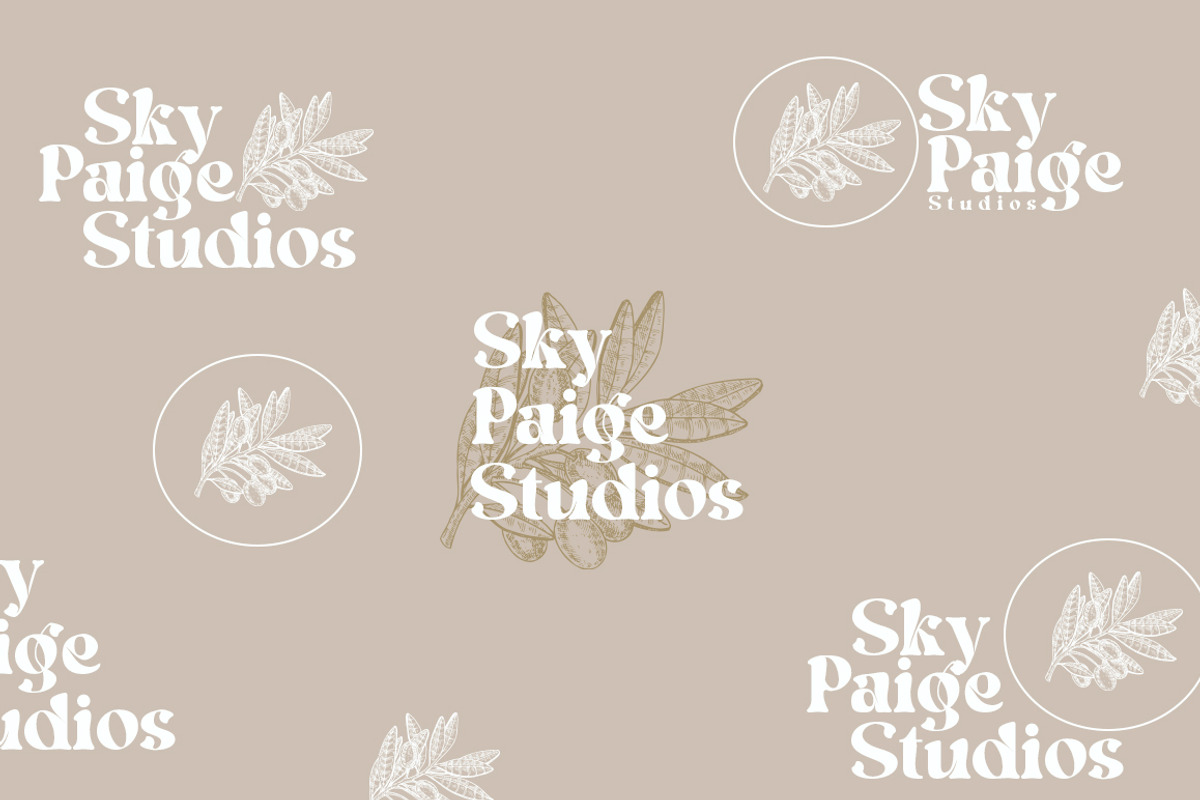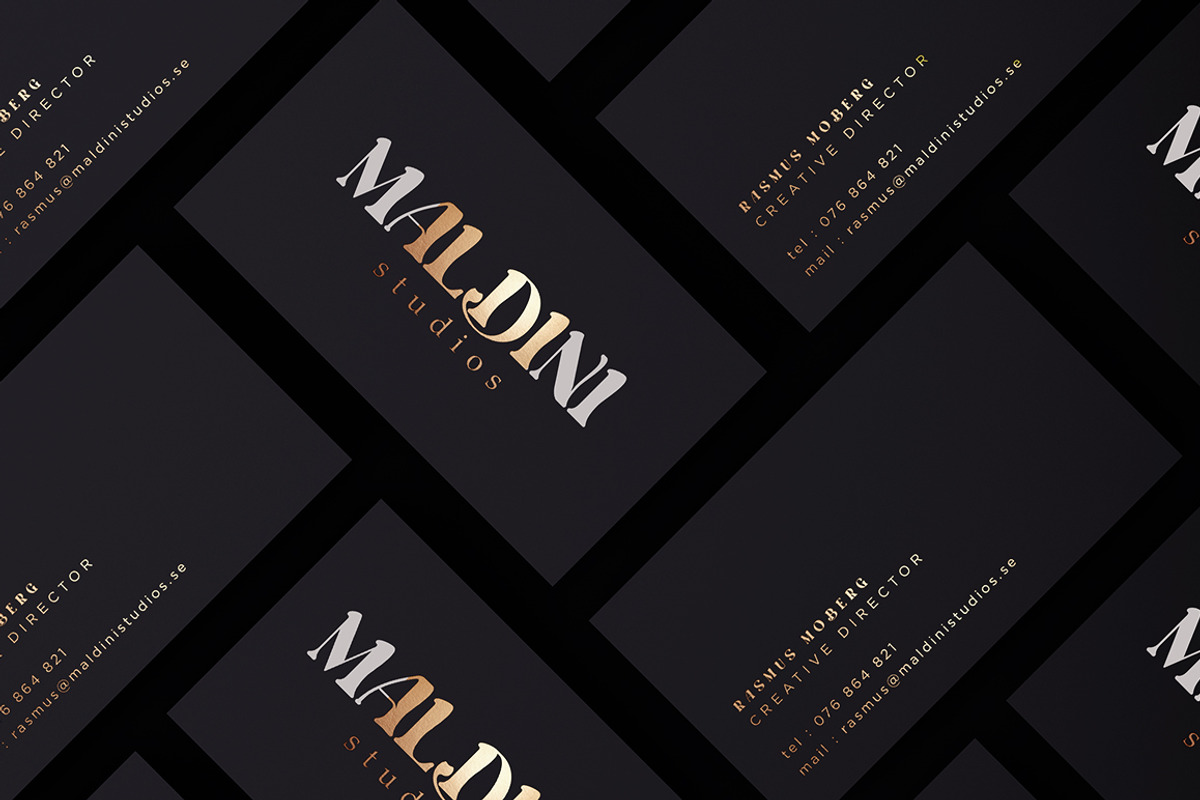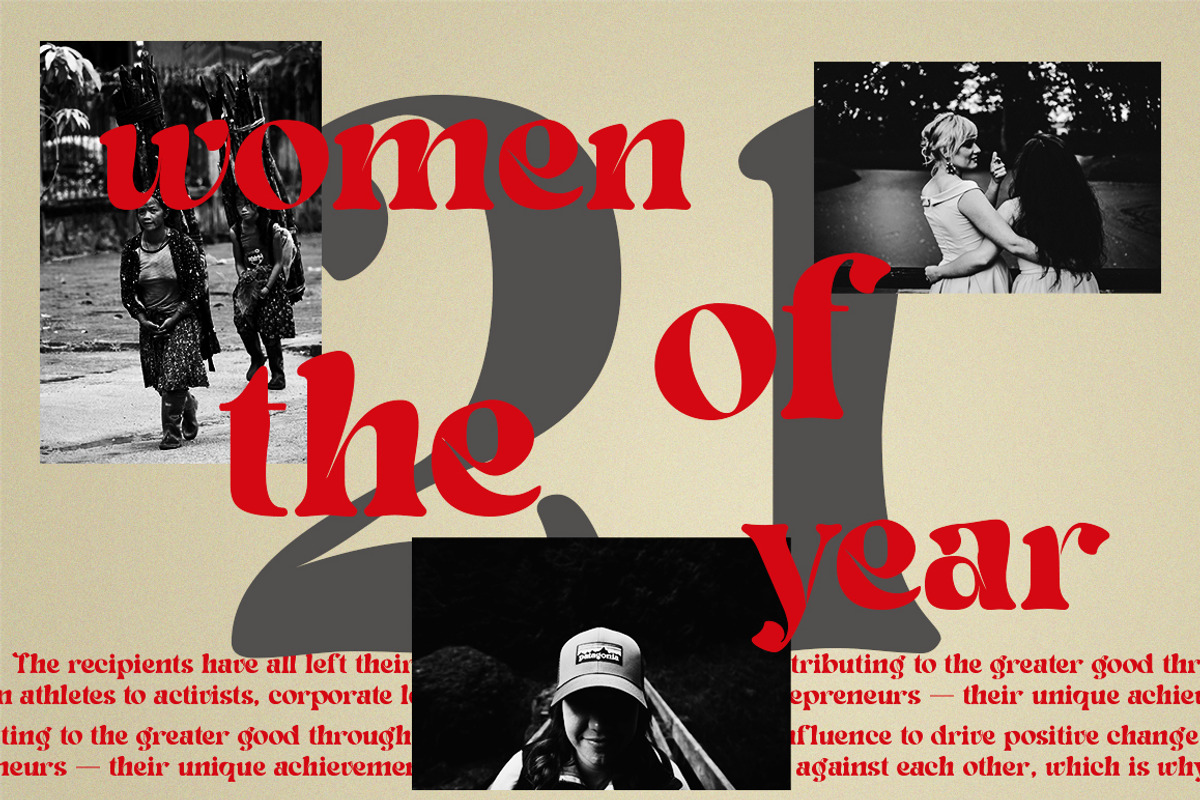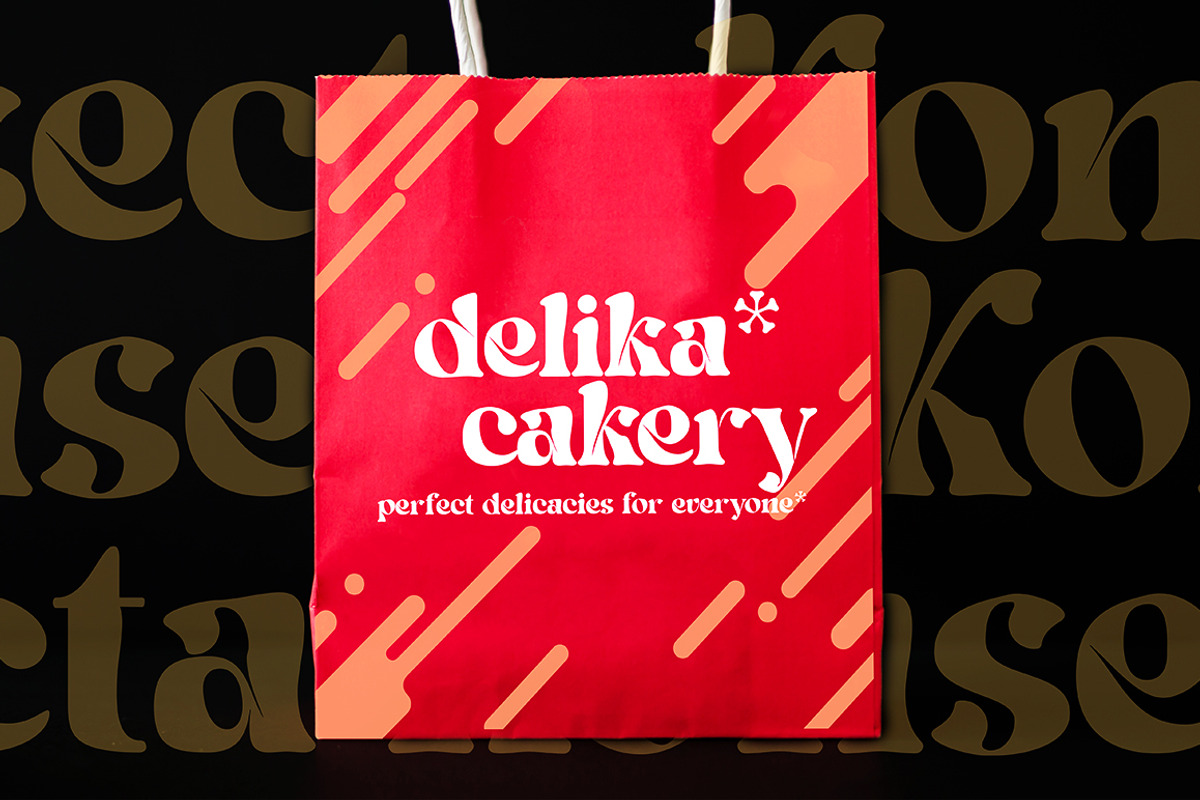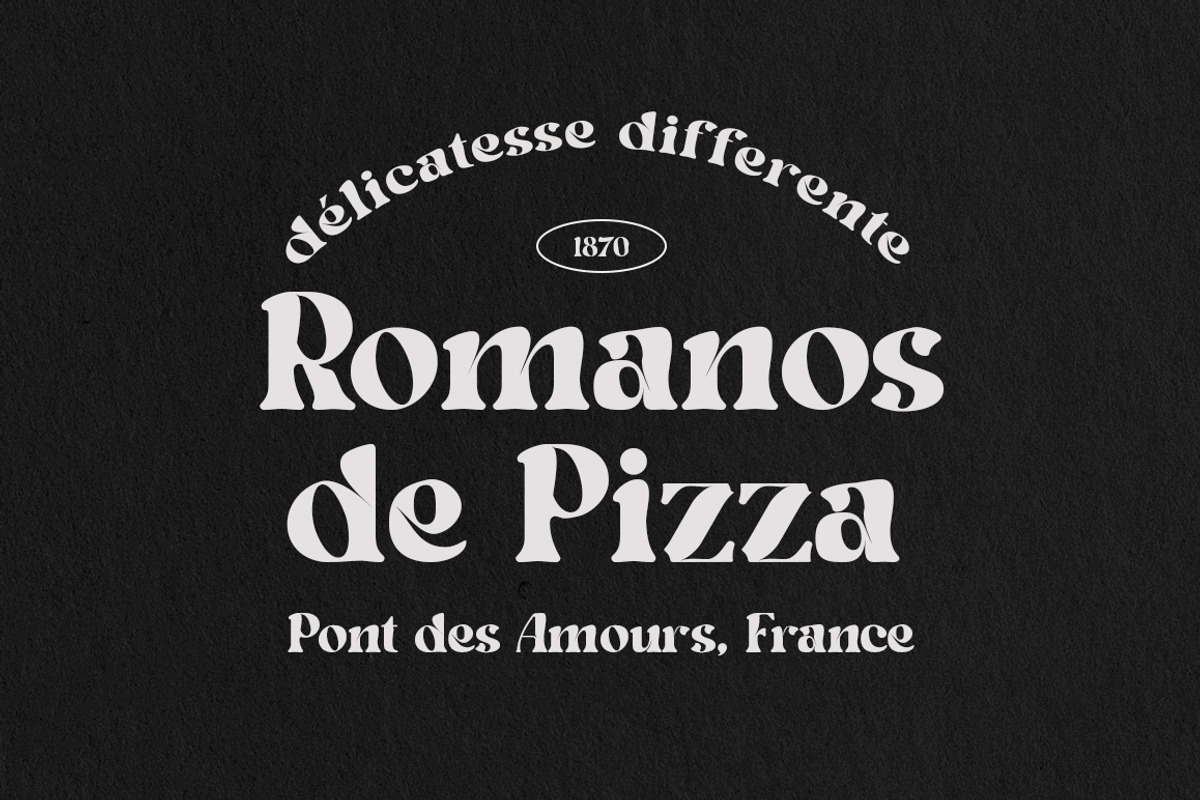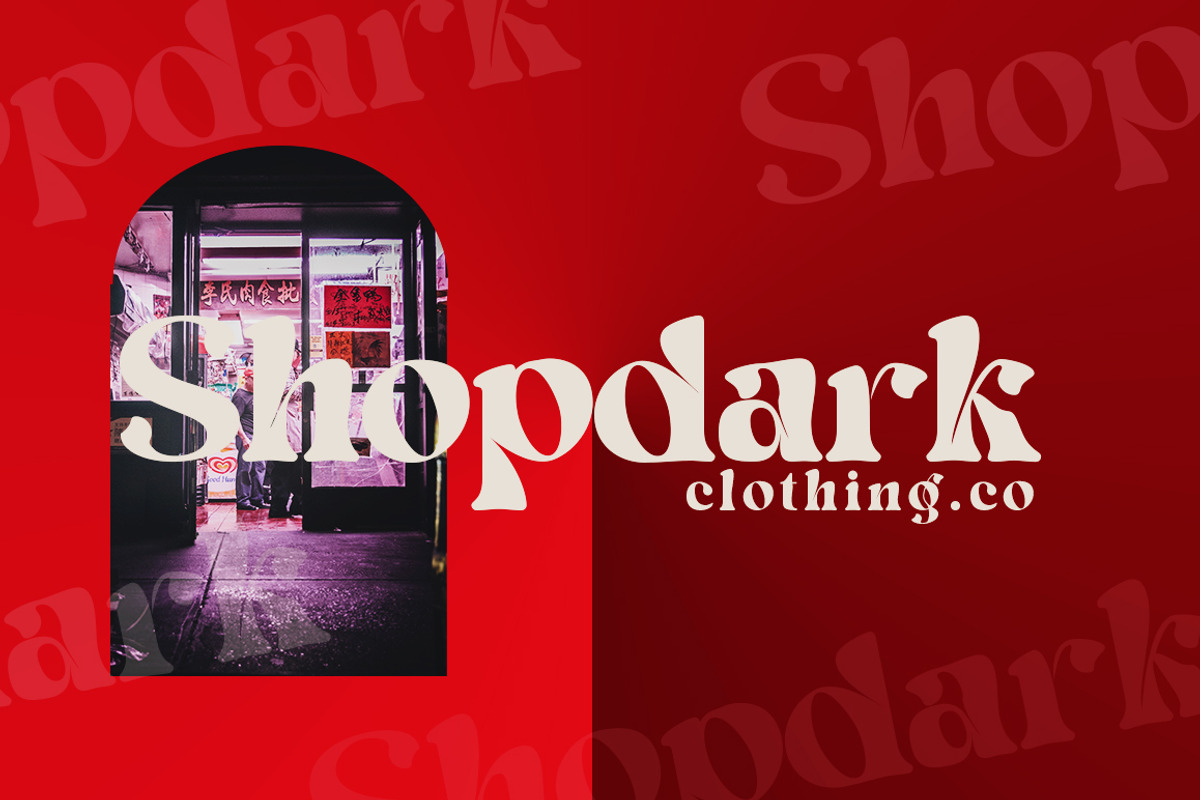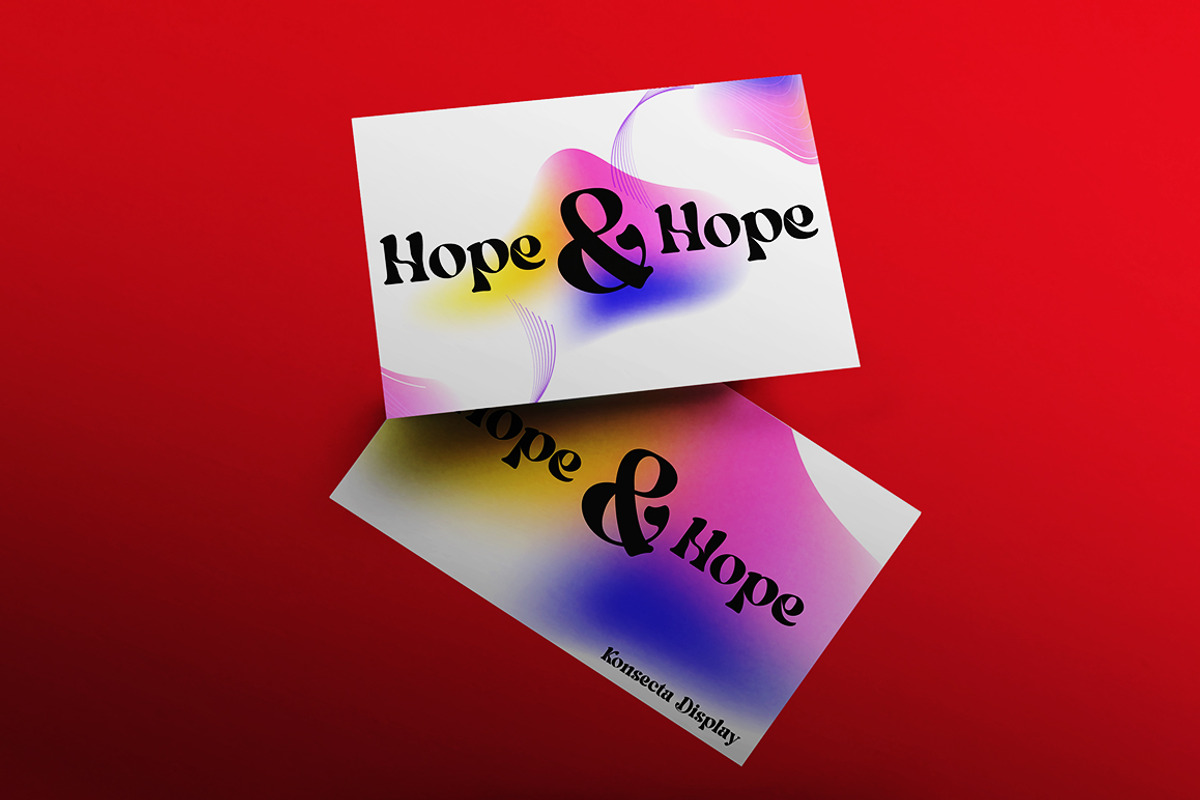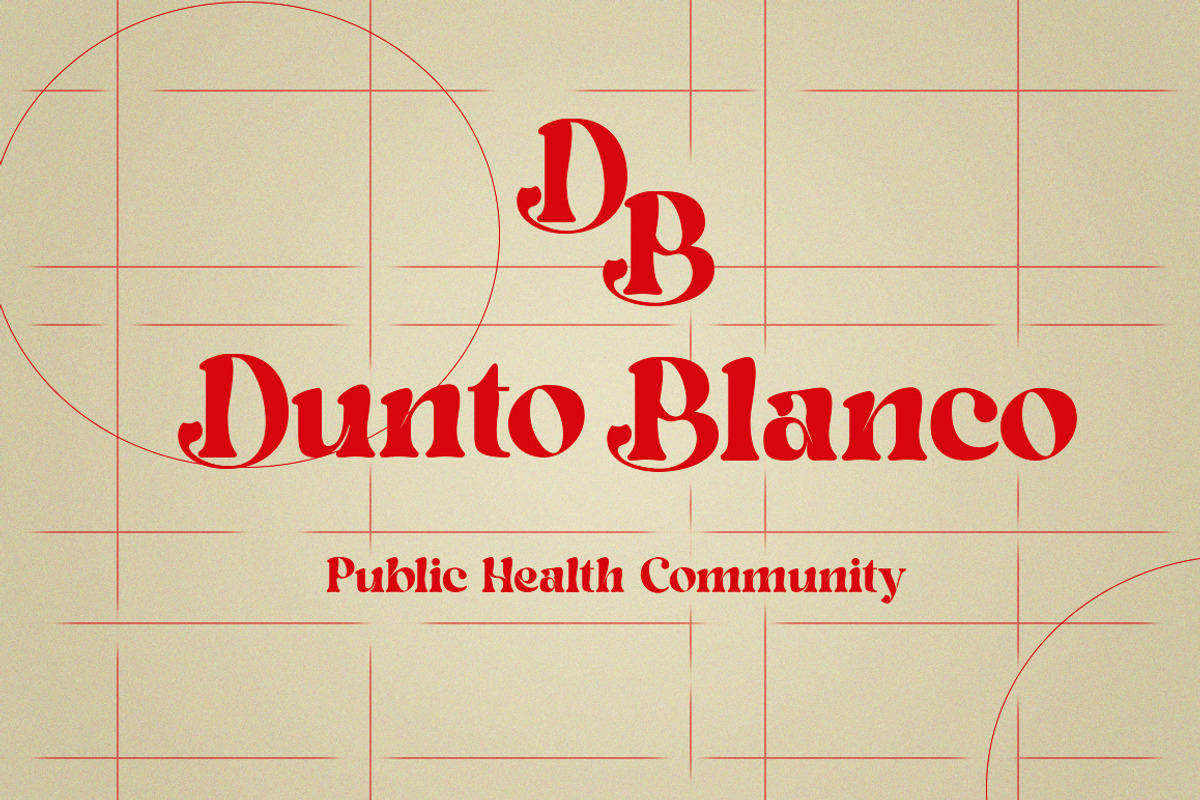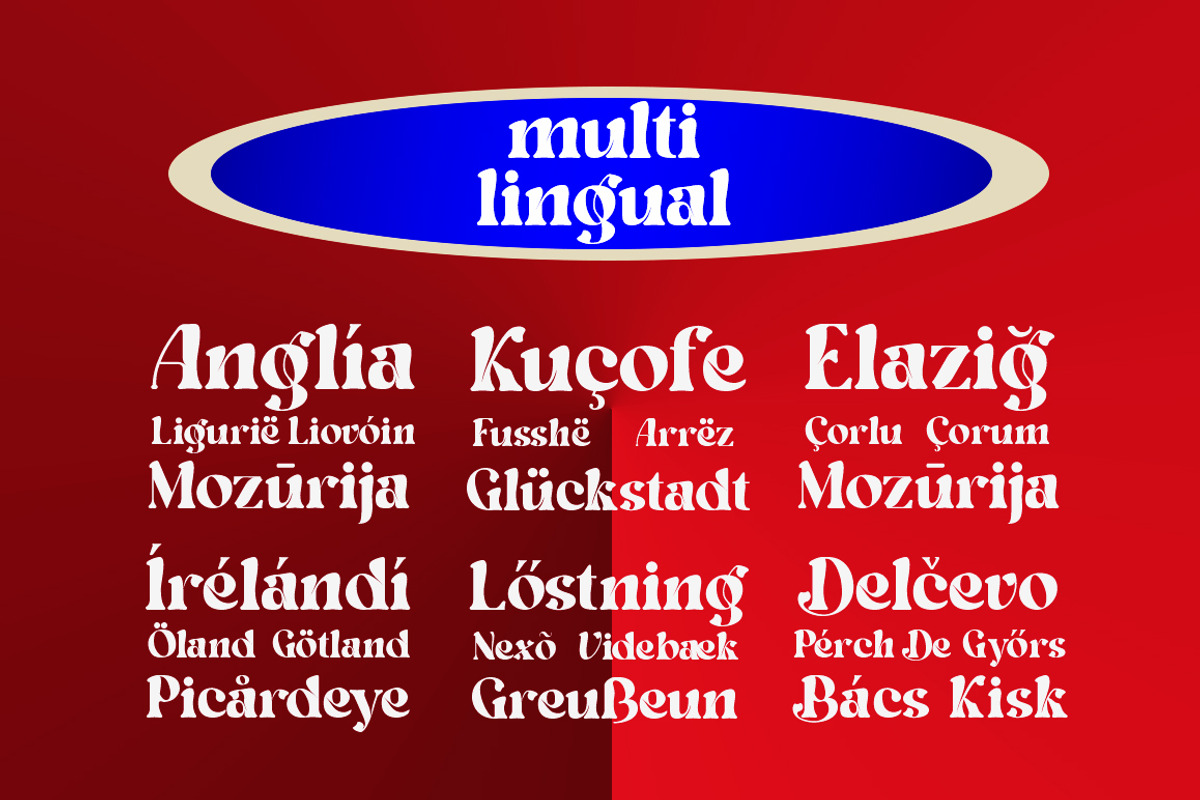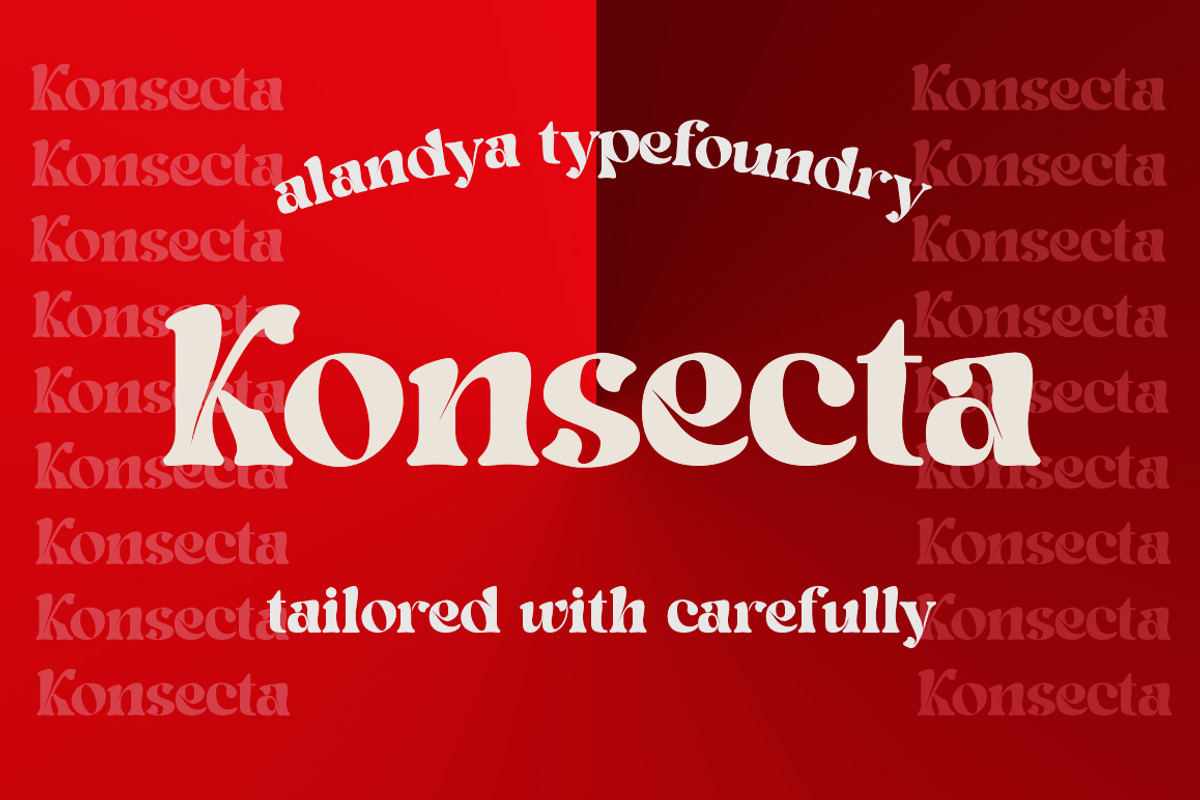
Konsecta Serif Display
Konsecta - Unique and versatile serif display
Konsecta serif display is a single weight typeface that aims to explore new design solutions. With a bold form a strong contrast and pronounced diagonal axis, this design hints both at past typeface styles while being unique and original in it’s appearance.
This font is suitable for use in many design forms, for example magazines, postcards, logos, DIY Projects, invitation card, quotes, vintage look design, wedding projects and much more.
If you like unconventional solutions and edgy design, Konsecta serif display is the font to go for.